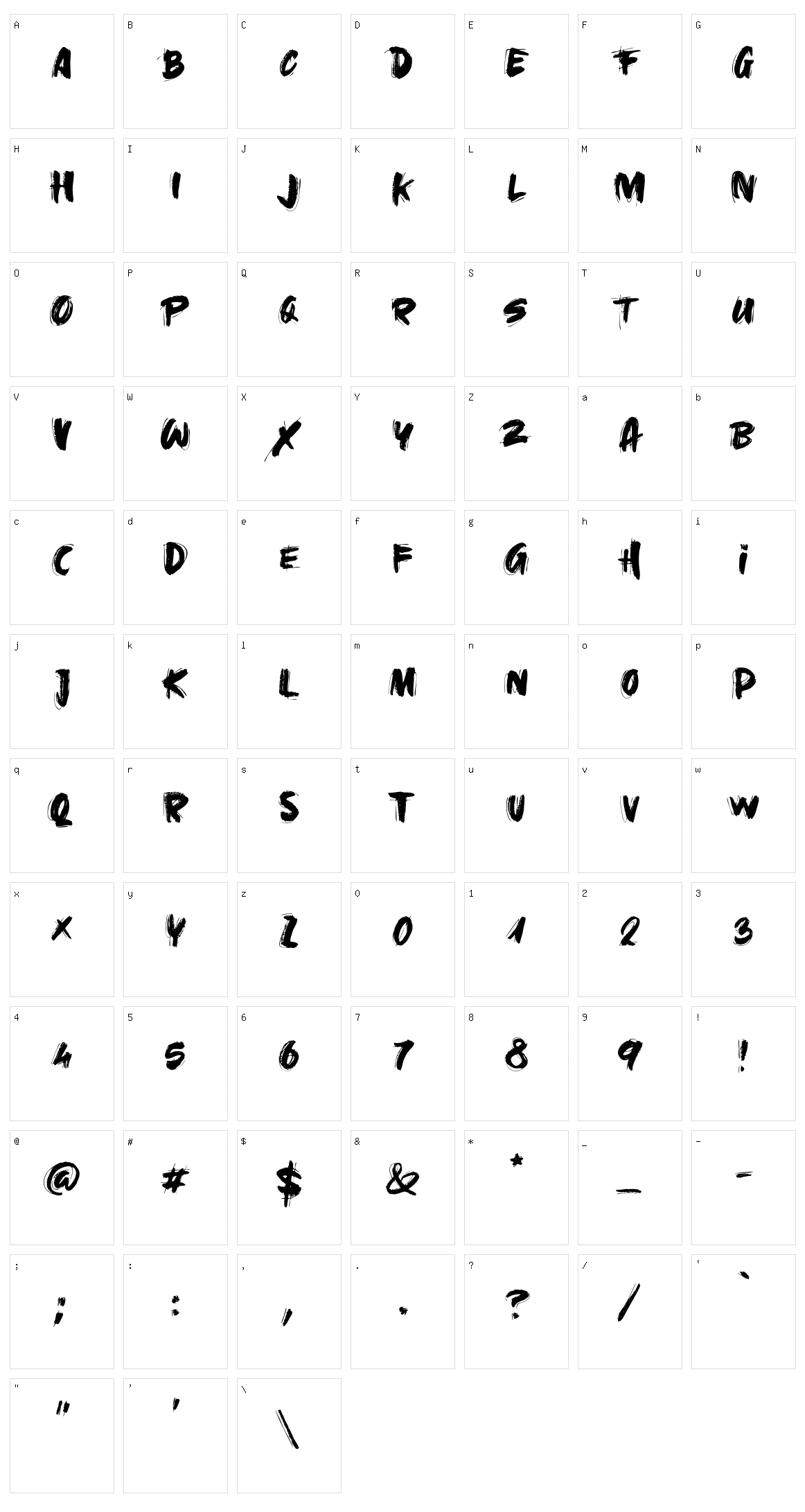
Gold Under The Mud
Designed by: Roland Huse Design
Category: Trash
GOLD UNDER THE MUD is a hand drawn grungy font with all capital letters.
I recommend to play around and combine / mix up upper and lowercase characters it looks more natural (for example when you have double letters) so they don't look identical.
I set a standard ligature for double T (TT) but for the rest you need to switch lowercase to uppercase to change and break repetition.